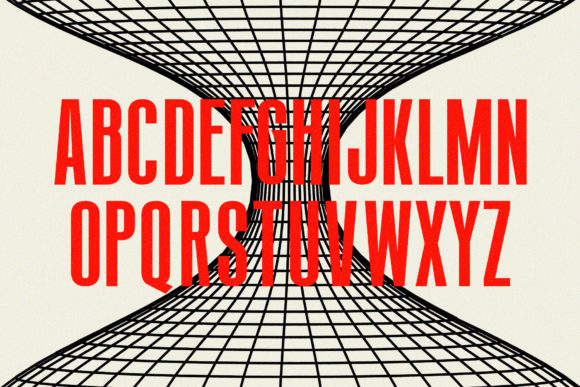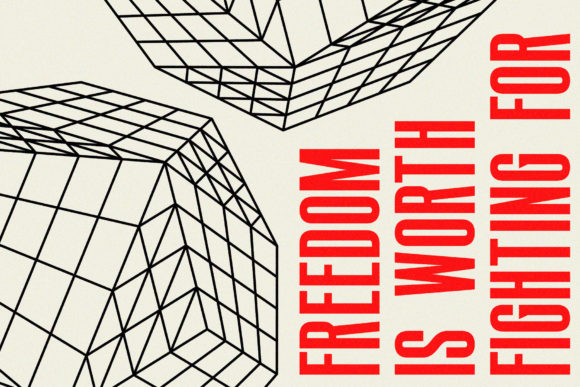
Fokus Font: Display Typeface Preview and Download
Fokus Font is a cool and adaptable display font. This font is suitable for designs such as t-shirts, sportswear, posters, logos, advertisements, clothing, and more.
Fokus Font is a cool and adaptable display font. This font is suitable for designs such as t-shirts, sportswear, posters, logos, advertisements, clothing, and more. Whatever the topic, this font will be a great asset to your font collection, as it has the potential to enhance any creation.